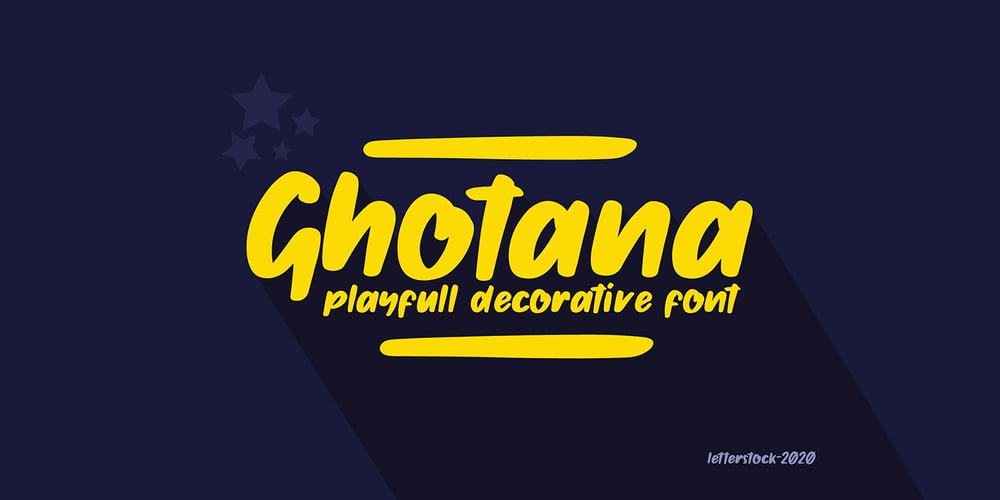
Ghotana Font Family was designed by Studio LetterStock and published by LetterStock. Ghotana contains 1 styles and family package options. Ghotana is an original hand writing font, give you a playful feel on your design. it’s perfect for poster, logo and many more.Thank you for using this font,Guguh Gumantoro